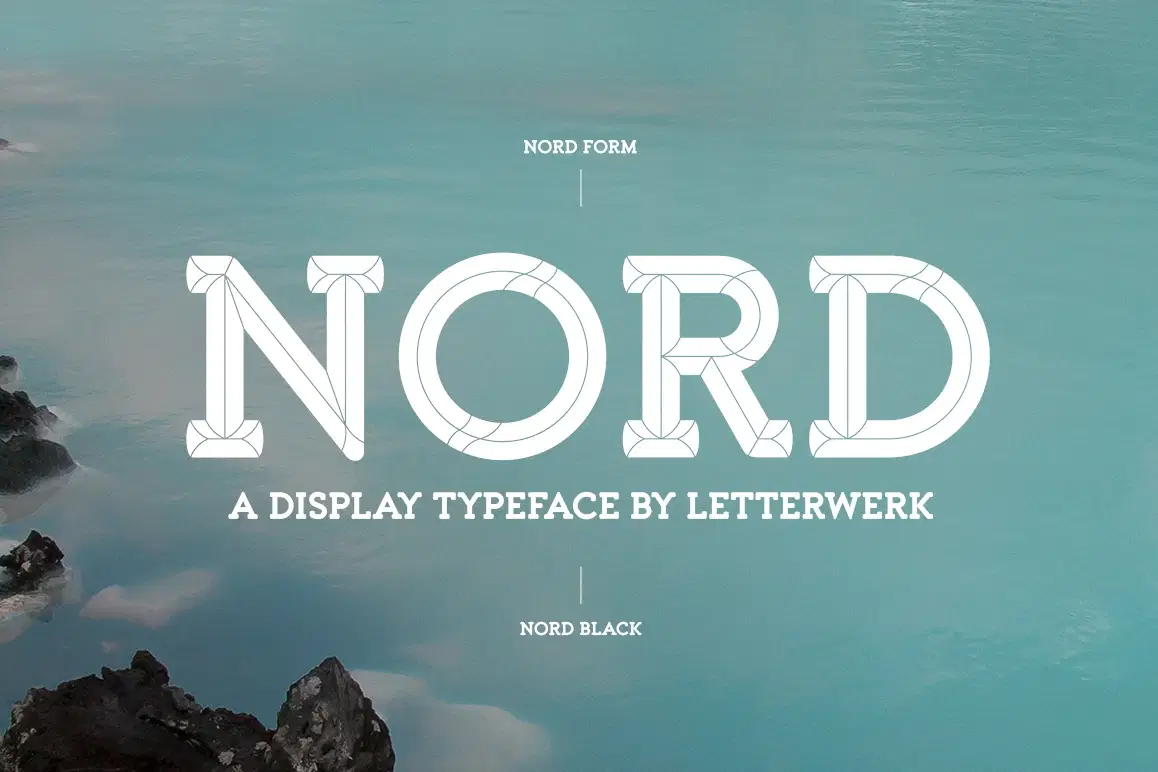
Nord Typeface
Letterwerk
Nord is a capital letter font made for display use. The 4 styles can either stand alone or be used for effects by adding different colors to each stackable style. Check the PDF: http://letterwerk.ch/wp-content/uploads/2015/03/Nord-Typeface.pdf